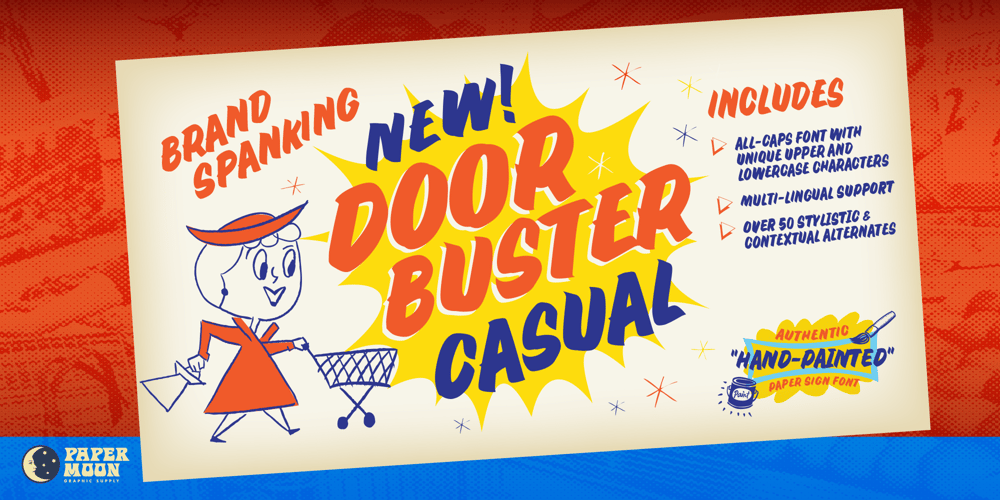
PM Doorbuster Casual Font Family was designed by Scott Banks and published by Paper Moon Type & Graphic Supply. PM Doorbuster Casual contains 1 styles and family package options. The PM Doorbuster Collection is based on retro hand-painted paper signs primarily seen in grocery stores from the 1940s through today. We meticulously hand-drew each font, modeling the spacing and uneven baseline found in vintage sign painting. The purposely organic ascenders and descenders, along with a huge set of ligatures/contextual alternates to avoid the same letters repeating when paired, give it a real hand-lettered look.PM Doorbuster Casual is perfect for both vintage-inspired and contemporary marketing, branding, and packaging designs. It’s a classic uppercase sign painter font that has been used from the 1950s thru today. You’ve probably seen hand-lettered versions used in tattoo studios, workshops, and chalkboard menus. Now it’s available in a digital format with all of the authentic look and feel of actual hand-painted letters. Check out a few of the samples included in the thumbnails to see what can be done with it.